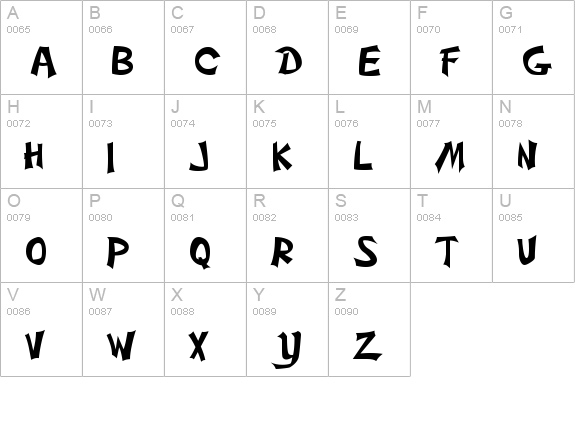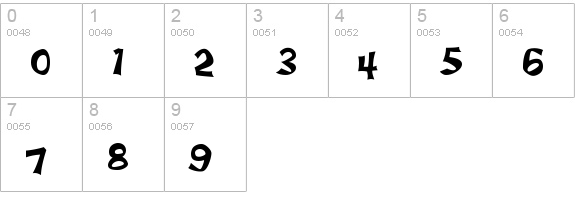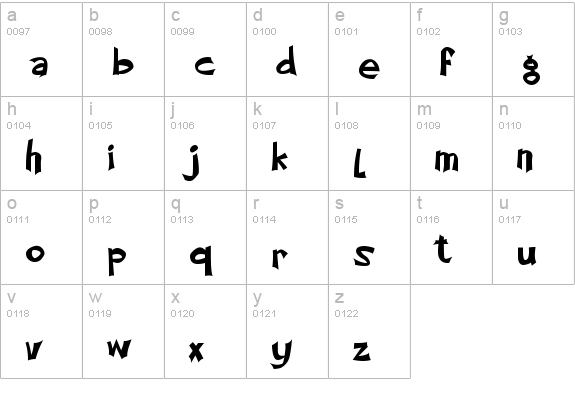
HolidayTimesJF Font Details
HolidayTimesJF is a whimsical and festive font that captures the joy and spirit of the holiday season. With its playful and decorative letterforms, this font is perfect for adding a touch of cheer to your designs, whether it's for holiday cards, party invitations, or seasonal decorations. The unique and stylized characters of HolidayTimesJF are sure to make your text stand out and create a warm and welcoming atmosphere. Best of all, HolidayTimesJF is available for free download at FontsMarket.com, making it easily accessible for anyone looking to add a festive touch to their projects. Whether you're a designer, crafter, or simply someone who loves the holiday season, HolidayTimesJF is a must-have font that will bring a touch of magic to your creations. Download it today and spread the holiday cheer with every word you write!